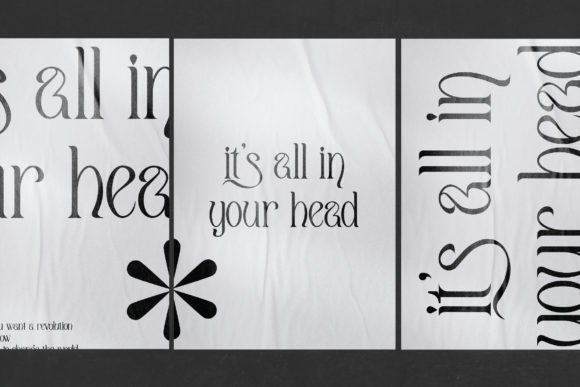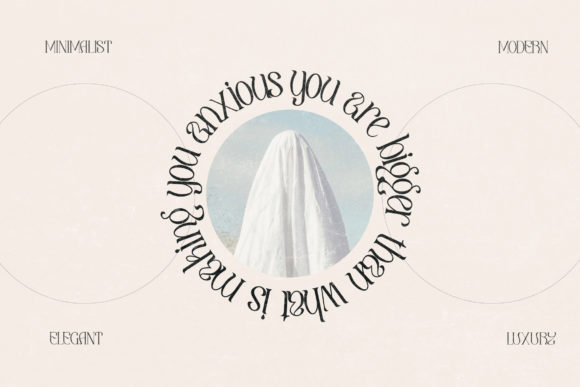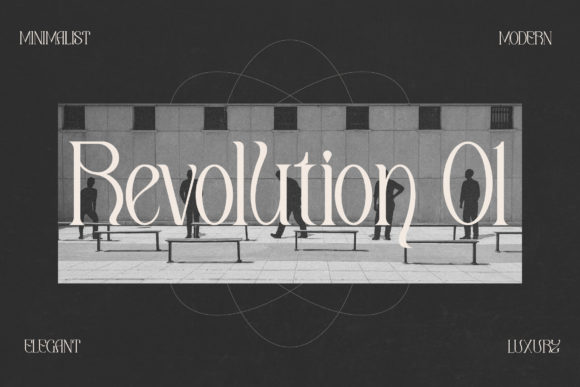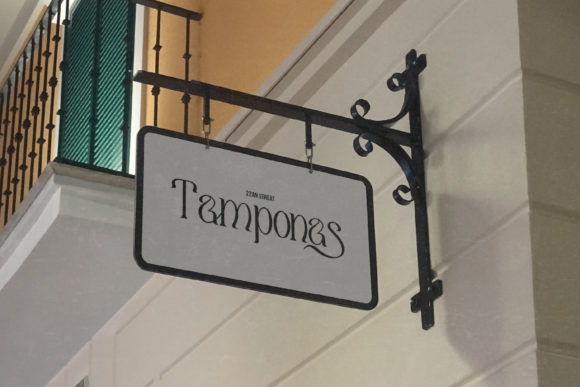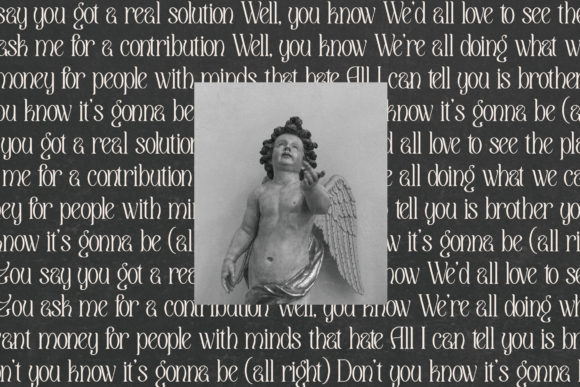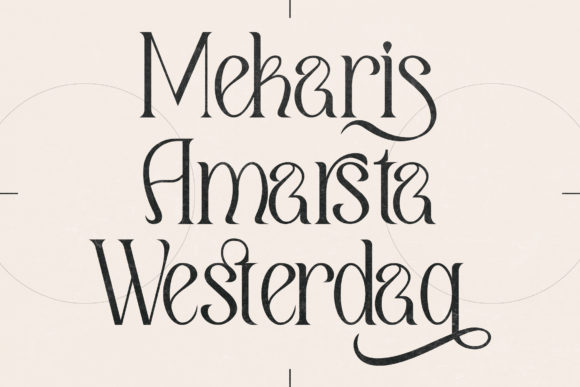
Introduction to Qaugherty Font
As a designer, there’s nothing quite like the thrill of seeing a project come together. The hours of brainstorming, sketching, and tweaking all culminate in a final reveal that’s both a reflection of your creativity and a testament to your skills. But what if you had the perfect design resource to elevate your work to the next level? Enter the Qaugherty Font, a delicate and stylish serif font that’s sure to make your creative project stand out.
With its PUA encoding, accessing all the glyphs and swashes is a breeze, giving you the freedom to get creative and experiment with different designs. Whether you’re working on an elegant logo, a book or movie title, or a fashion brand, the Qaugherty Font is the perfect choice. And with its high-quality design and transparent background, you can be sure that your work will look professional and polished.
Honest Review: Qaugherty Font
As a designer, I’ve had the chance to work with a plethora of fonts for various creative projects. Recently, I stumbled upon the Qaugherty Font, and I must say, it’s a fascinating addition to my design resource arsenal.
- High-quality design: The Qaugherty Font boasts a sleek and modern aesthetic, perfect for contemporary designs.
- Limited font styles: While the Qaugherty Font is visually appealing, it lacks the variety of font styles that I often look for in a design resource.
- Not suitable for formal projects: The font’s modern design may not be suitable for formal or traditional projects, where a more conservative approach is preferred.
Overall, the Qaugherty Font is a solid addition to any designer’s toolkit. While it may have some limitations, its high-quality design, free download, and transparent background features make it a great option for creative projects that require a modern touch.
The Qaugherty Font is a high-quality, free download that offers a unique and versatile design resource for your creative project. With its transparent background, this font is perfect for adding a touch of elegance and sophistication to your designs.